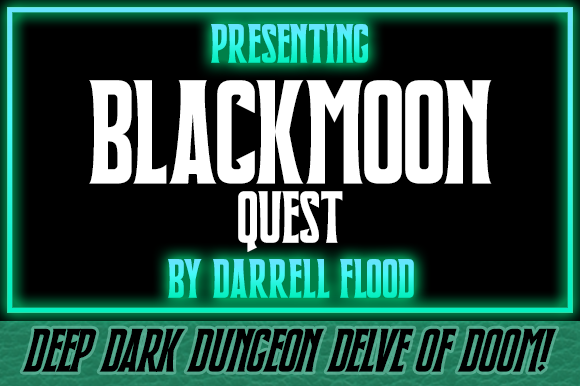
Unleash Your Creativity with Blackmoon Quest Font
Are you a designer, crafty enthusiast, or simply someone who loves to explore their creative side? Look no further! Introducing Blackmoon Quest, a bold display font that is sure to take your projects to new heights. Masterfully designed to become a true favorite, this font has the potential to bring each of your creative ideas to the highest level.
The Power of Typography: Why Blackmoon Quest Stands Out
Typography is an essential element in any design project. The right font can make or break the visual appeal of your work. Blackmoon Quest is more than just a font – it’s a statement piece. Its bold and eye-catching design is perfect for headlines, titles, and any other text that needs to grab attention. Whether you’re working on a logo, poster, or social media graphic, Blackmoon Quest is the perfect choice.
What Makes Blackmoon Quest So Special?
So, what sets Blackmoon Quest apart from other fonts out there? Here are just a few reasons why designers and crafters are falling in love with this amazing font:
- Bold and Eye-Catching: Blackmoon Quest is a bold display font that demands attention. Its unique design ensures that your text will stand out from the crowd.
- Highly Versatile: Whether you’re working on a digital project or a print design, Blackmoon Quest is the perfect choice. Its clear and crisp design looks amazing on any background.
- Easy to Read: Despite its bold design, Blackmoon Quest is surprisingly easy to read. This makes it perfect for headlines, titles, and short paragraphs of text.
- Perfect for Branding: If you’re looking for a font that will help you establish a strong brand identity, Blackmoon Quest is an excellent choice. Its unique design ensures that your brand will stand out from the competition.
How to Use Blackmoon Quest in Your Designs
Now that you know why Blackmoon Quest is so special, let’s talk about how to use it in your designs. Here are a few ideas to get you started:
- Logos and Branding: Use Blackmoon Quest to create a bold and eye-catching logo that will help establish your brand identity.
- Posters and Flyers: Add some drama to your posters and flyers with Blackmoon Quest. Its bold design is perfect for grabbing attention.
- Social Media Graphics: Take your social media graphics to the next level with Blackmoon Quest. Its clear and crisp design looks amazing on any background.
- Packaging Design: Use Blackmoon Quest to add some personality to your packaging design. Its unique design ensures that your products will stand out on store shelves.
Tips and Tricks for Getting the Most Out of Blackmoon Quest
To help you get the most out of Blackmoon Quest, here are a few tips and tricks:
- Experiment with Colors: Don’t be afraid to experiment with different colors and backgrounds. Blackmoon Quest looks amazing on any background.
- Play with Font Sizes: Blackmoon Quest is a bold font, but that doesn’t mean you can’t play with font sizes. Try using different font sizes to create visual interest.
- Combine with Other Fonts: Blackmoon Quest is a versatile font that can be paired with other fonts to create a unique look. Try combining it with a script font or a sans-serif font.
In conclusion, Blackmoon Quest is an amazing font that is sure to take your designs to the next level. Its bold and eye-catching design makes it perfect for headlines, titles, and any other text that needs to grab attention. Whether you’re a designer, crafty enthusiast, or simply someone who loves to explore their creative side, Blackmoon Quest is a must-have font.